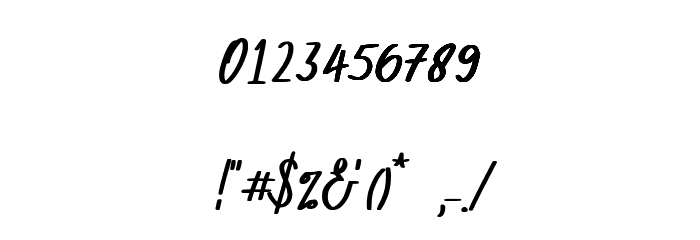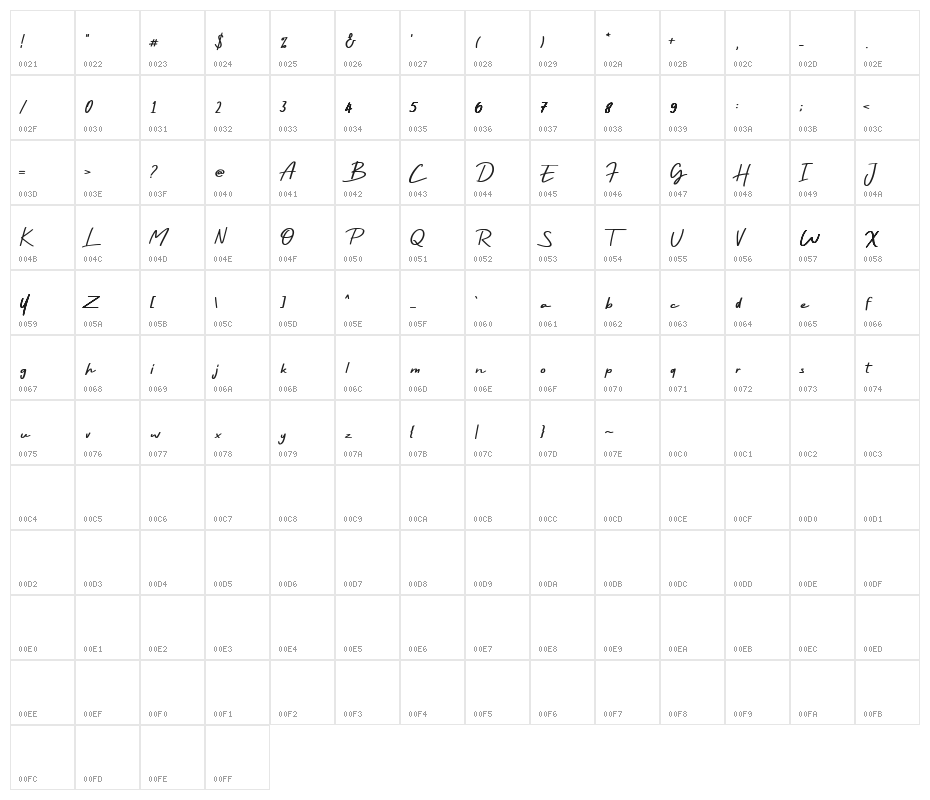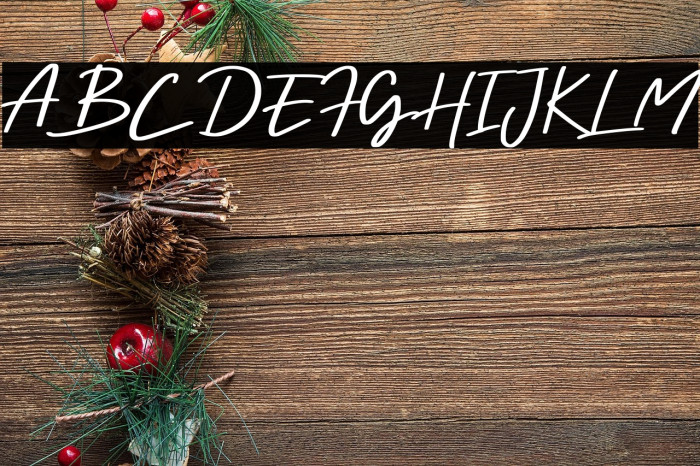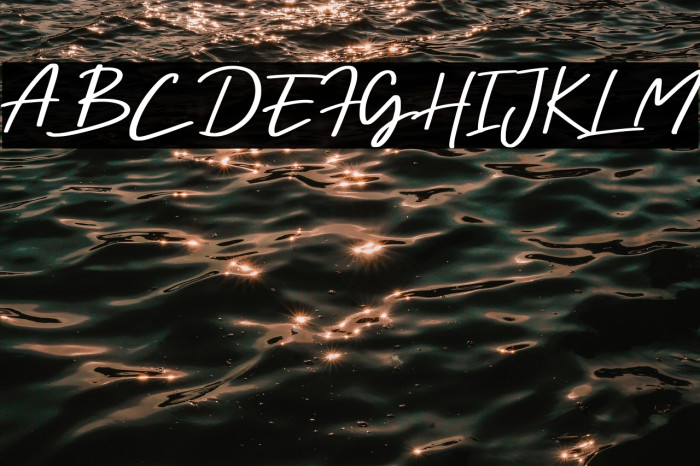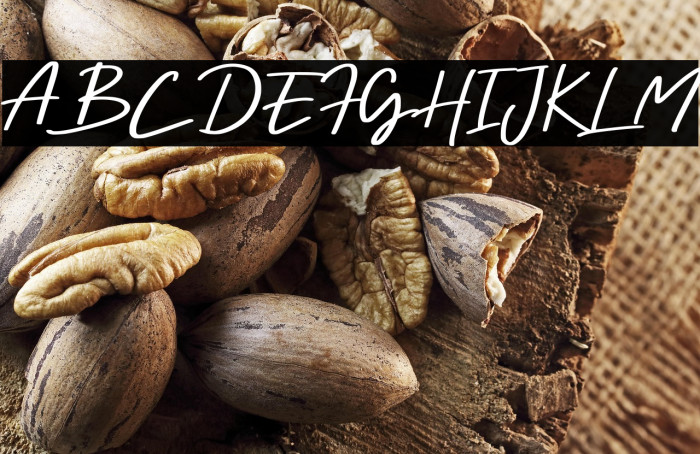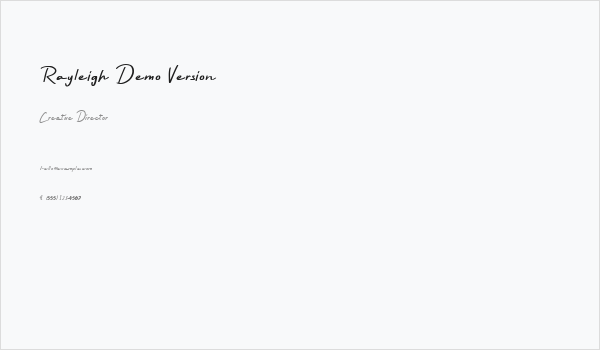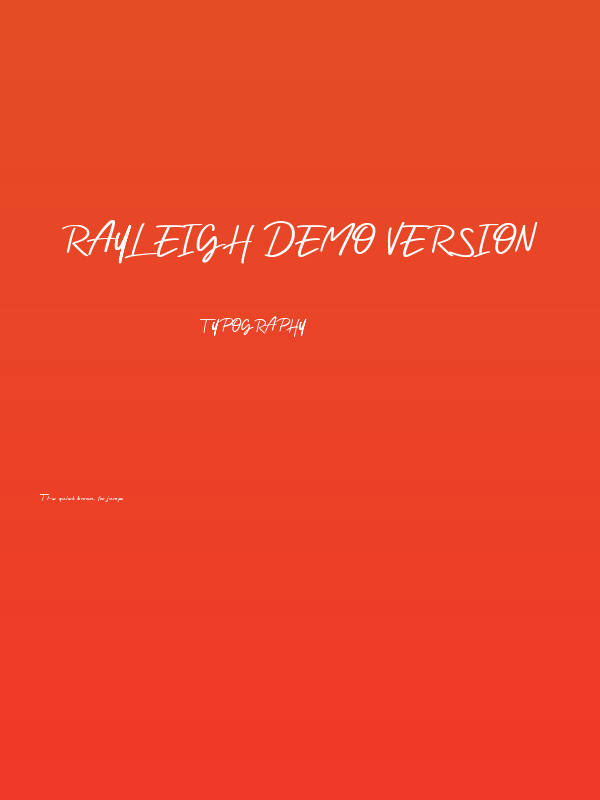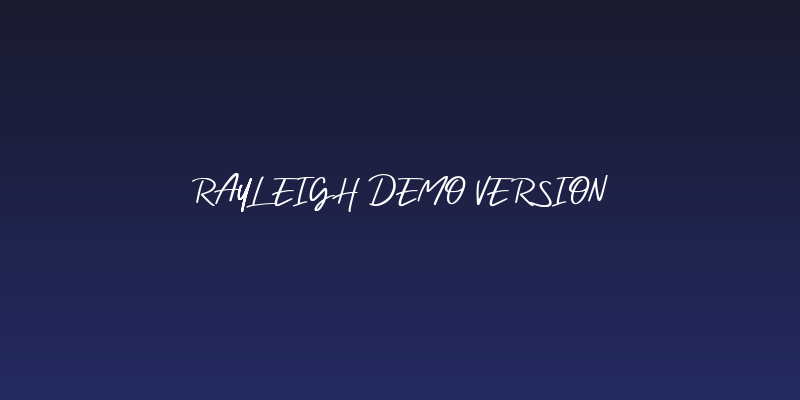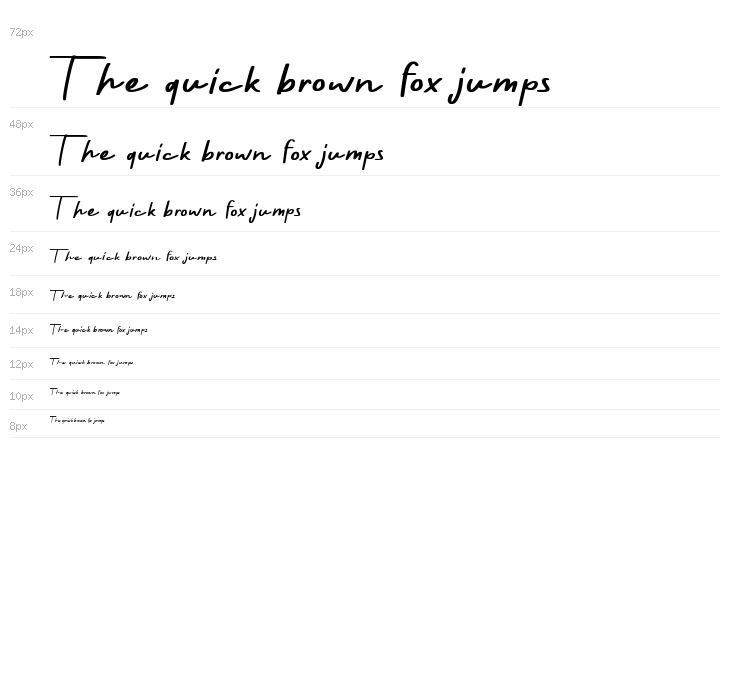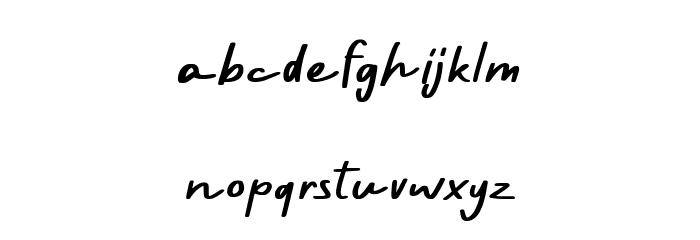
Rayleigh Demo Version Font
Rayleigh Demo Version Description
This font exhibits a dynamic and fluid handwritten style, characterized by its elegant and slightly slanted letterforms. The uppercase letters are bold and sweeping, with a sense of motion and flair, while the lowercase letters maintain a consistent flow, enhancing readability. The numerals are well-proportioned and align seamlessly with the overall aesthetic. Special characters are thoughtfully integrated, maintaining the font's cohesive look. This font's design is both stylish and approachable, making it suitable for a variety of creative applications.
| Use Case | Logos, Invitations, Greeting cards |
| Proposed Projects | Ideal for personal branding, invitations, greeting cards, and creative projects requiring a personal touch. |